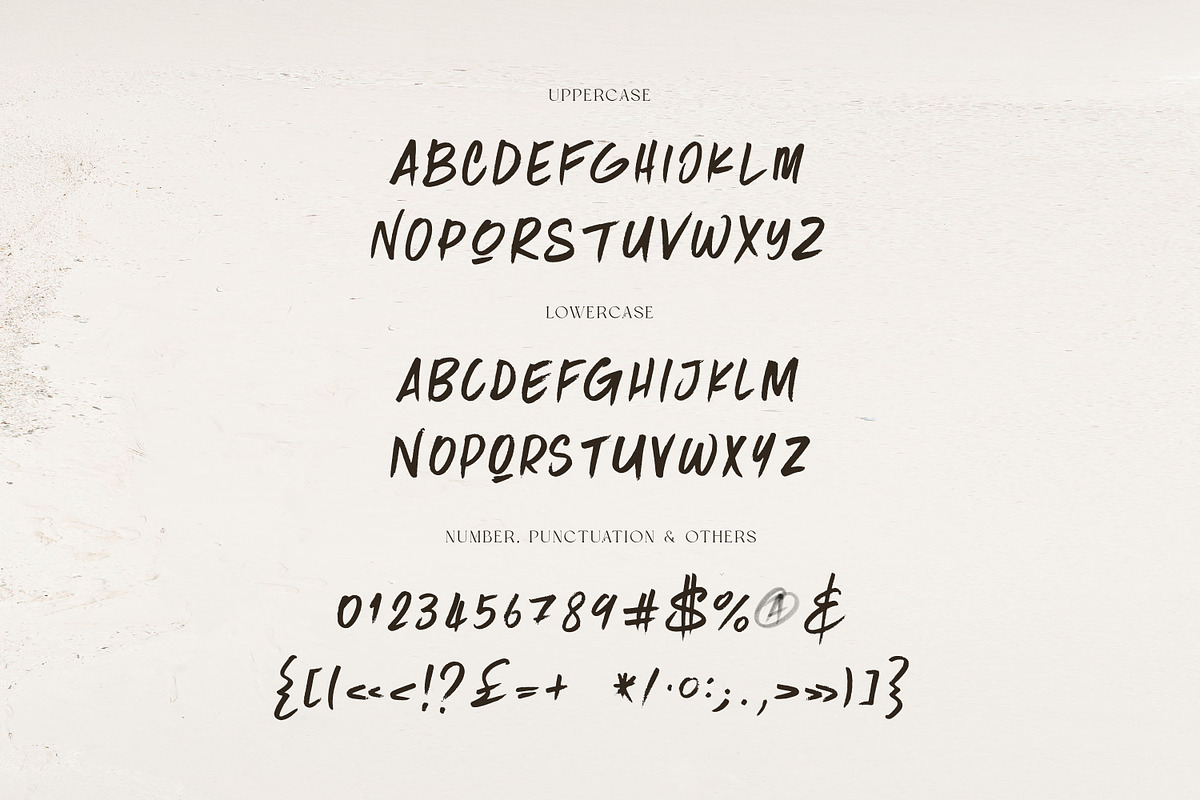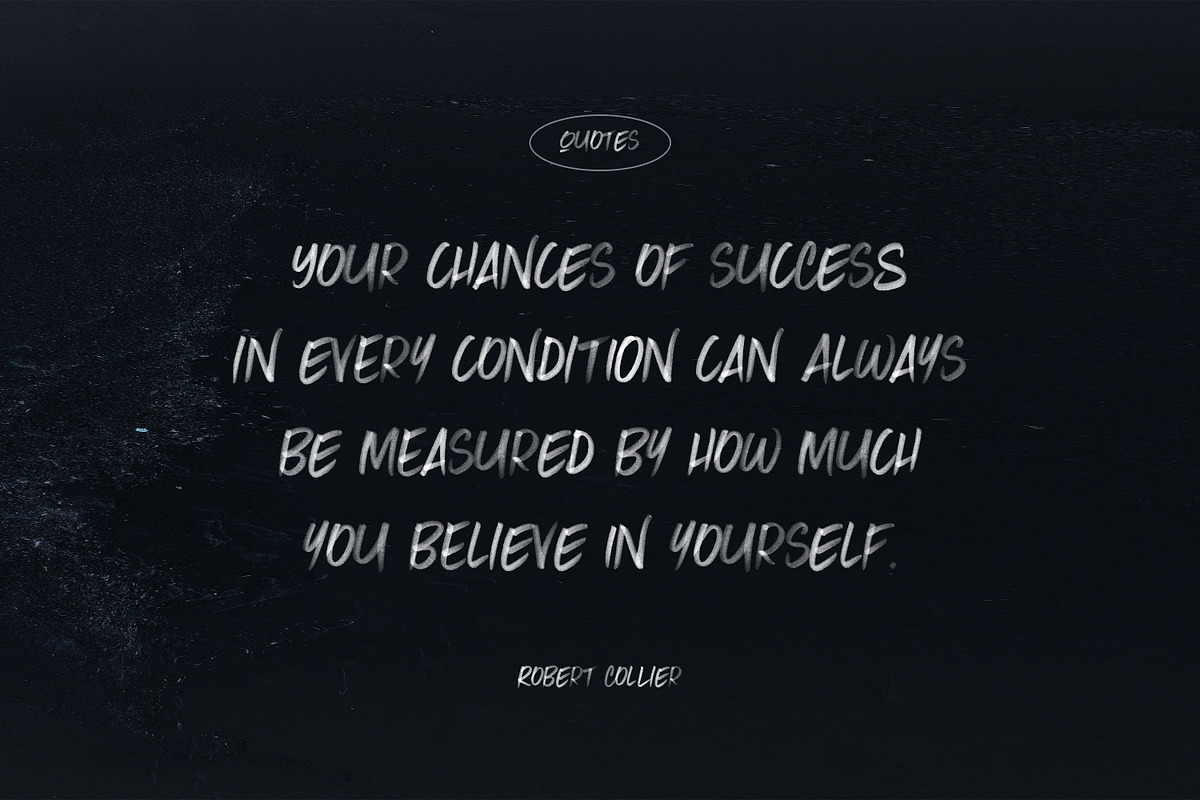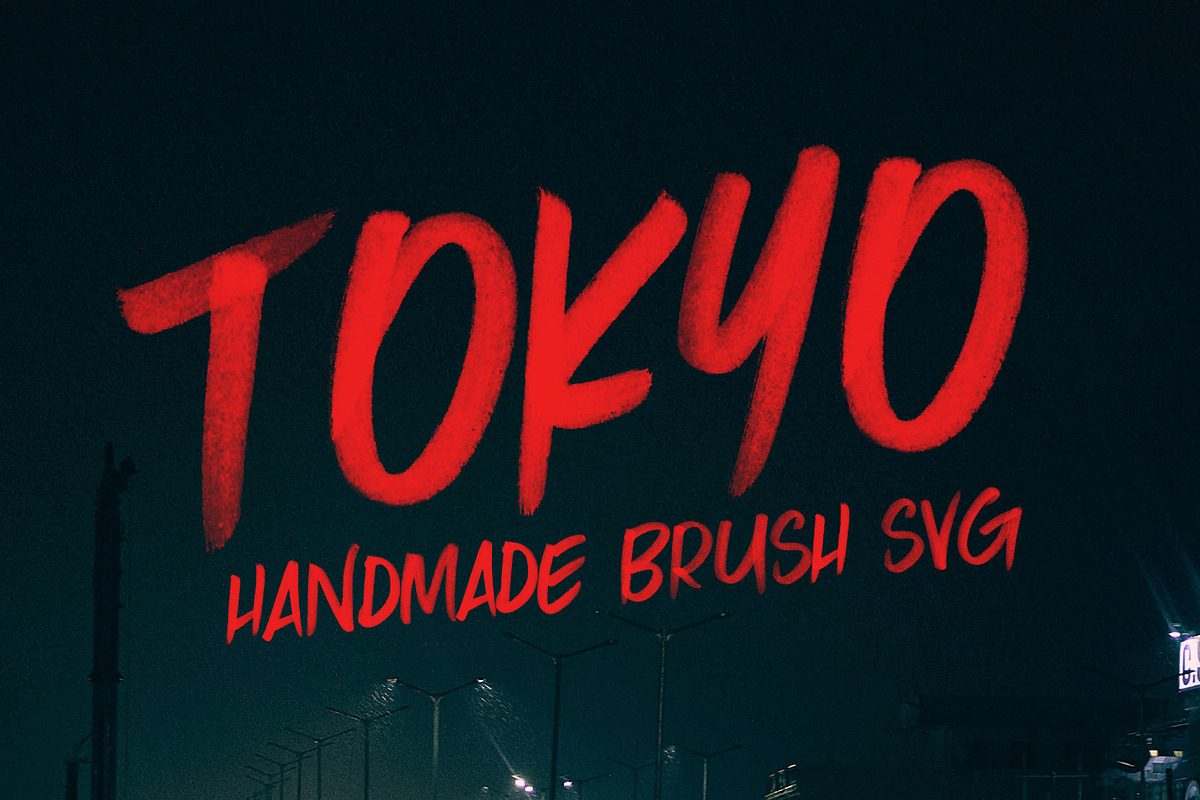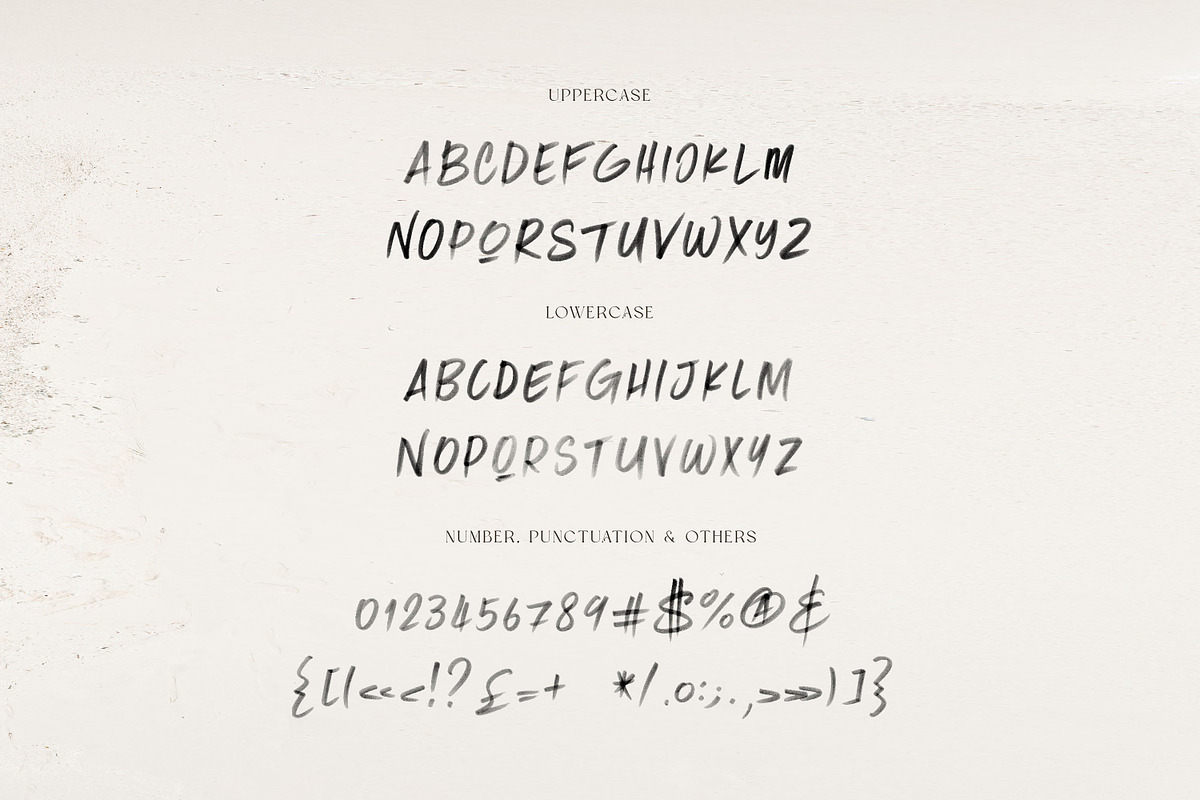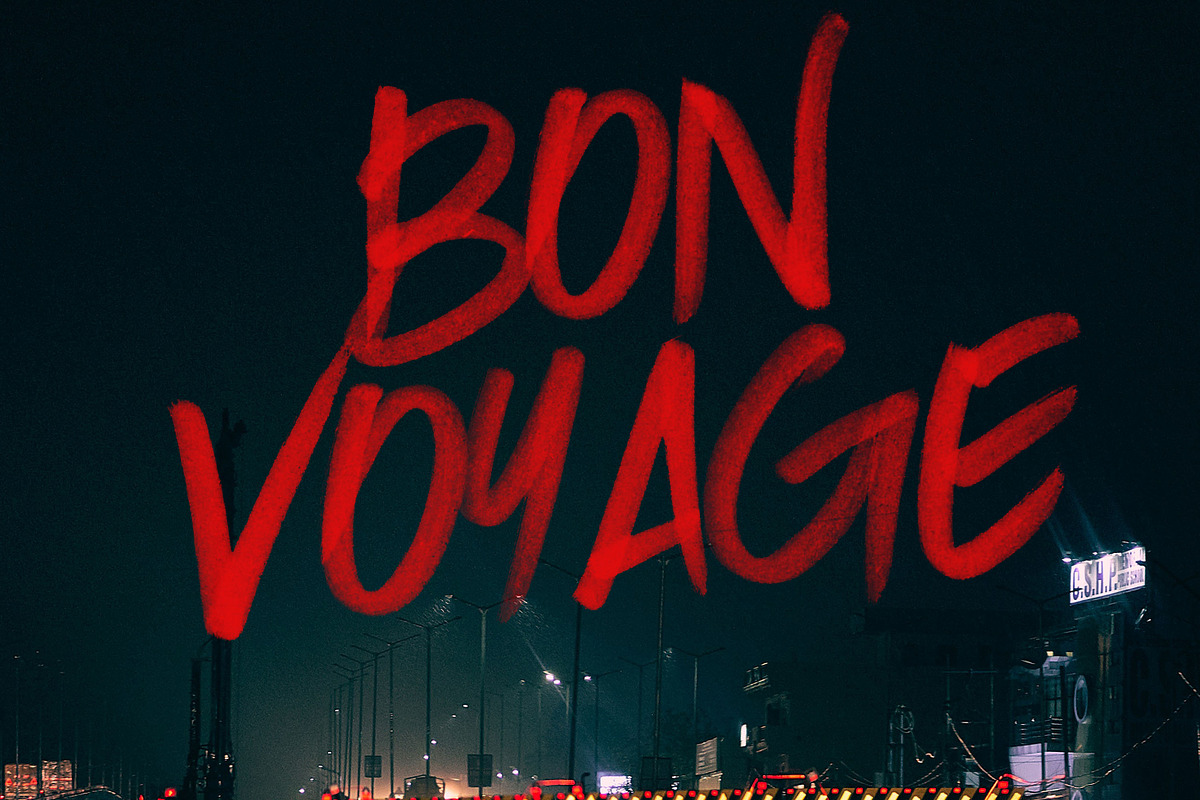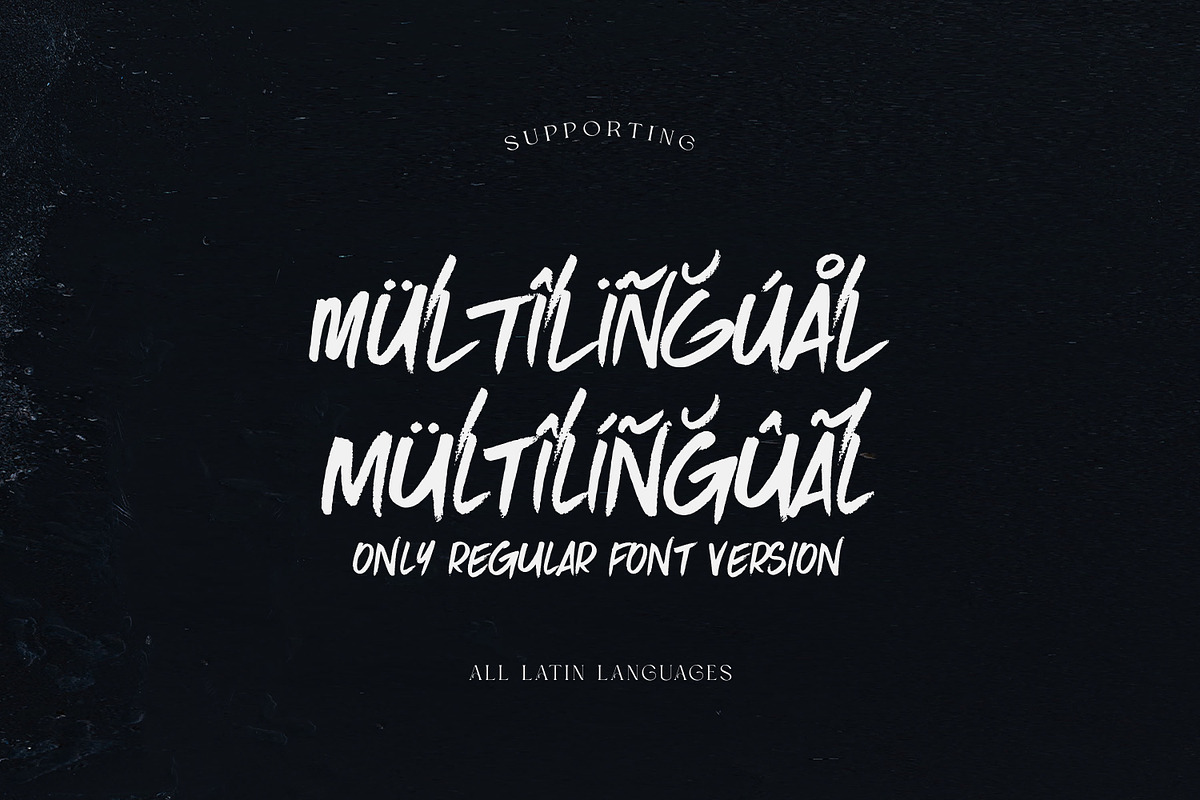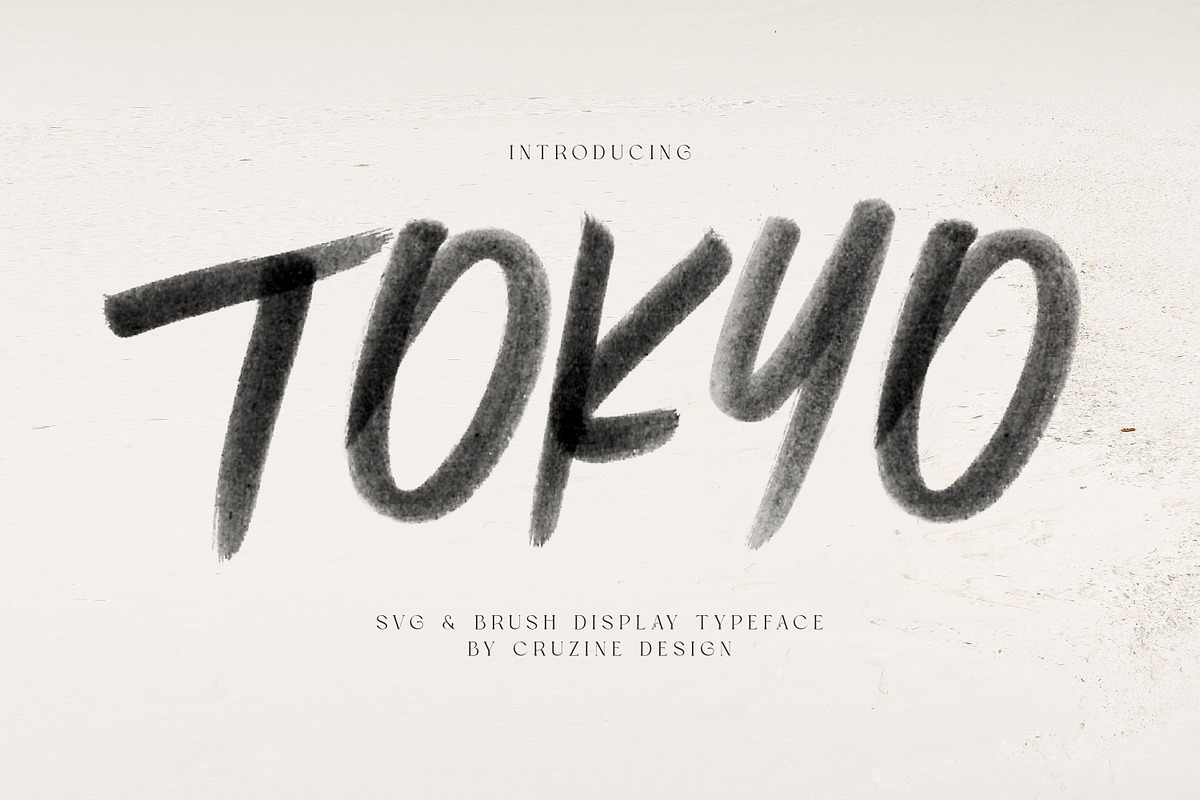
Tokyo Brush & SVG Font
Brush, rough or grunge style sans serif display font for your new projects. Handwritten with bold marker. Great for grunge, urban or artistic projects!